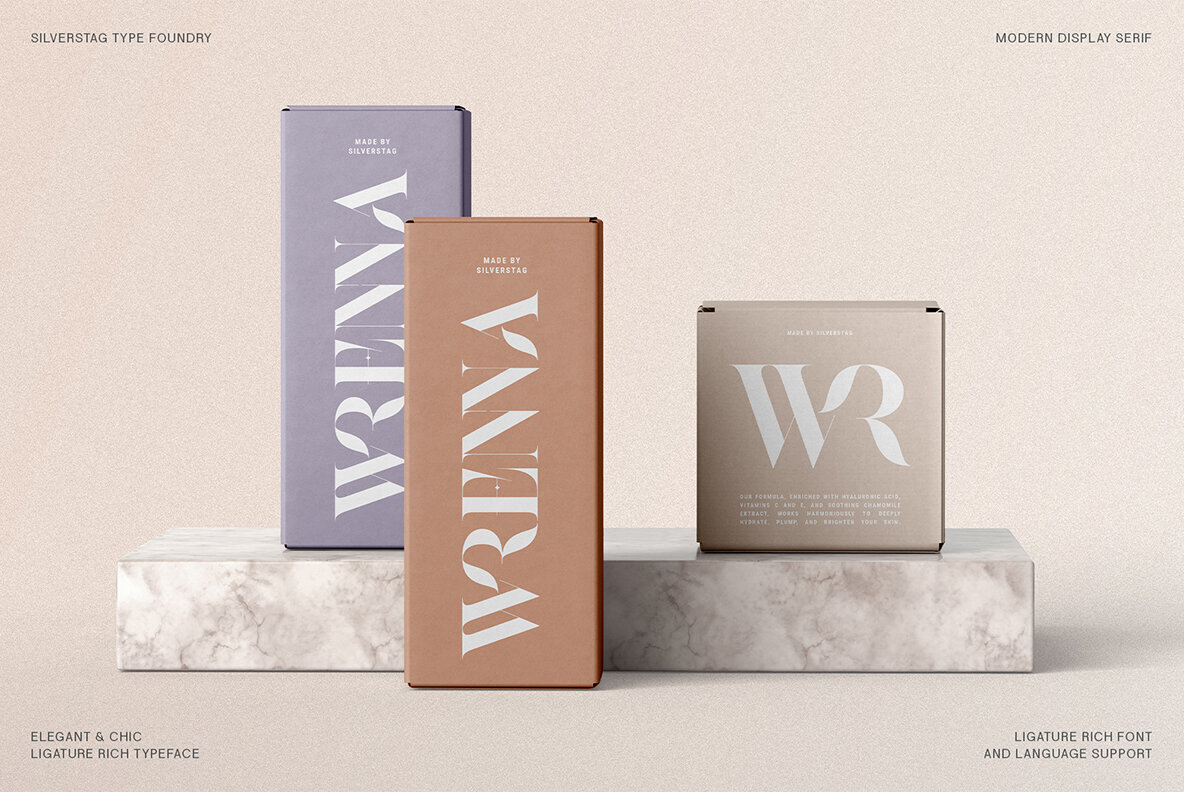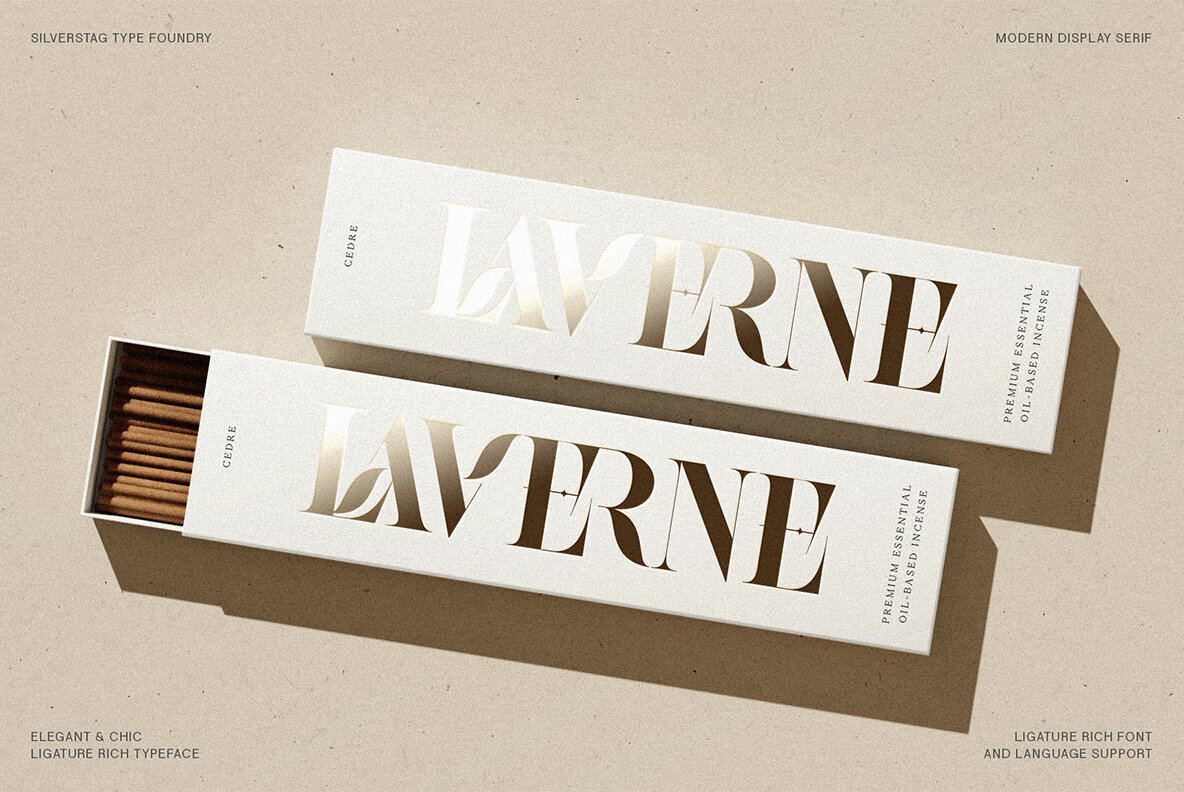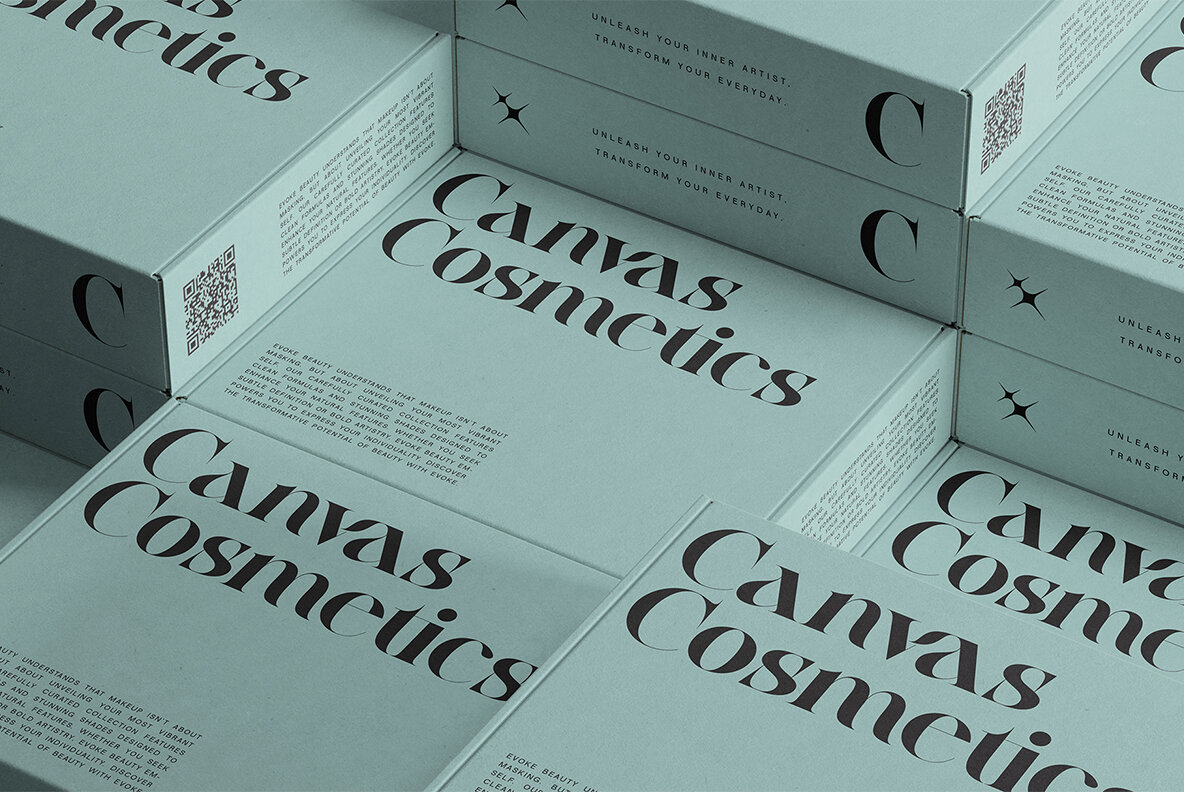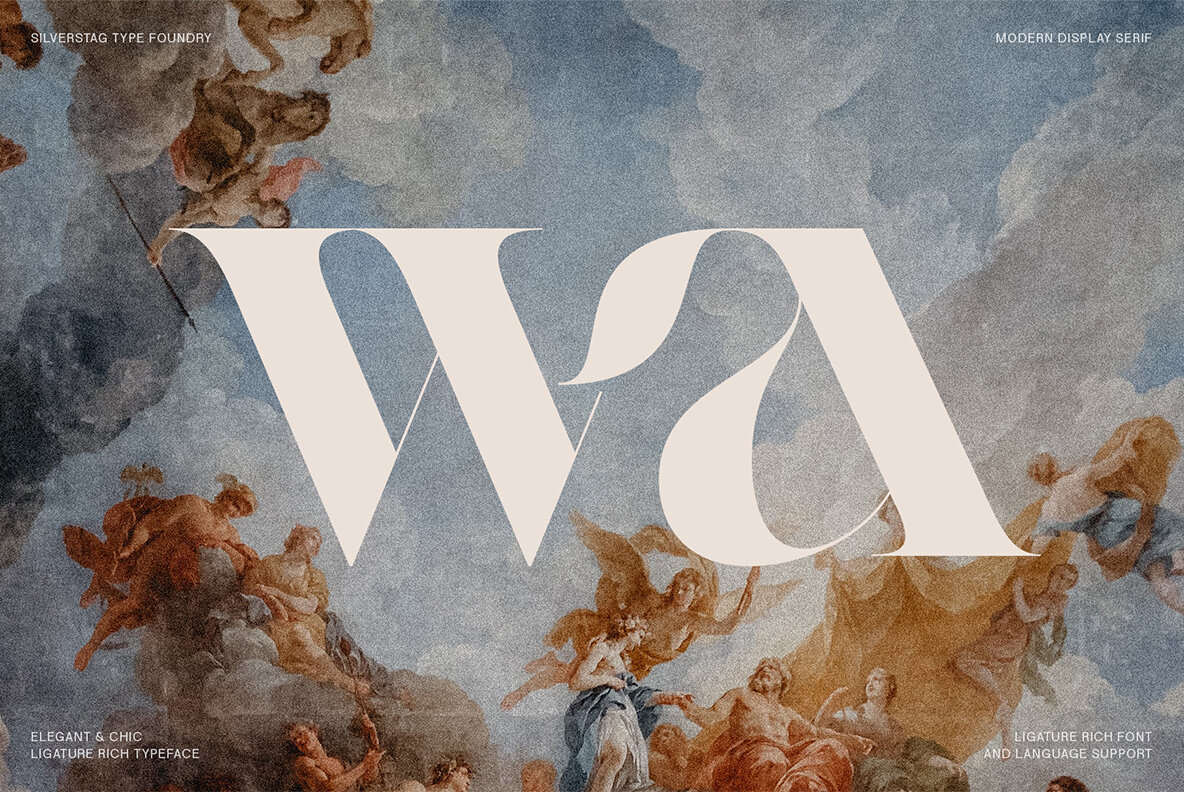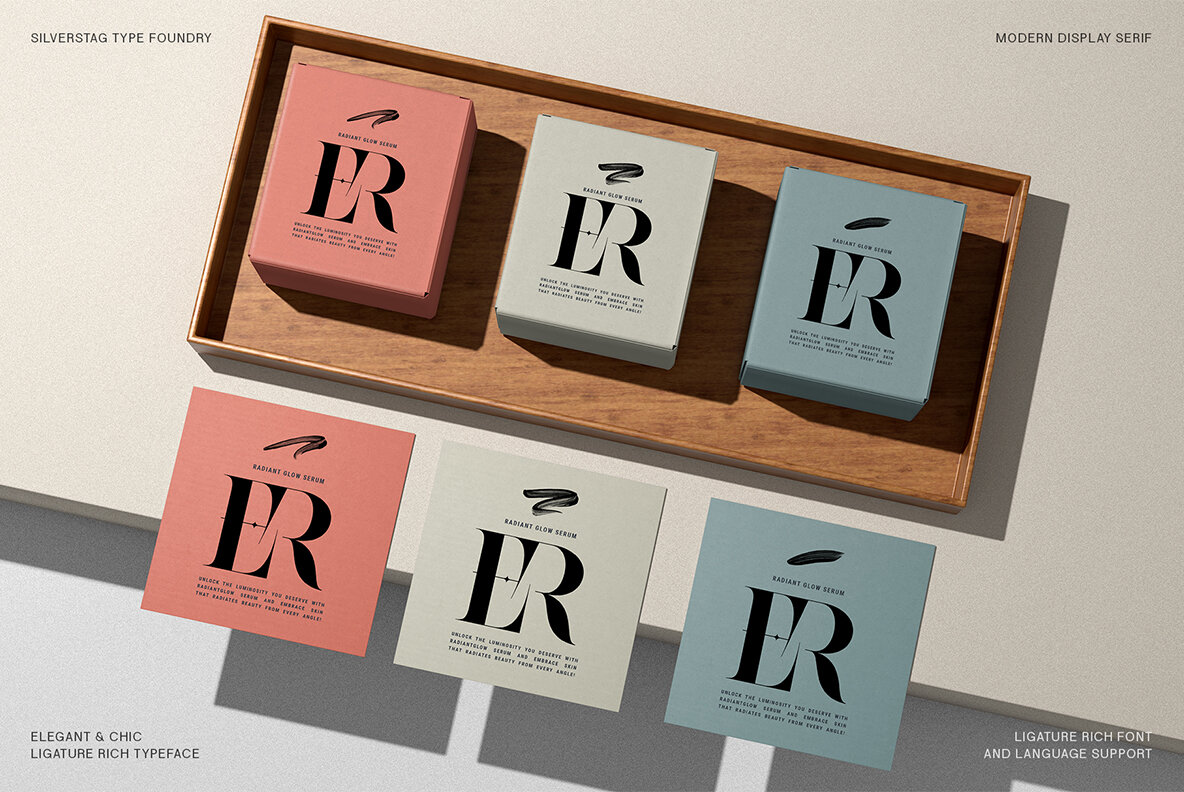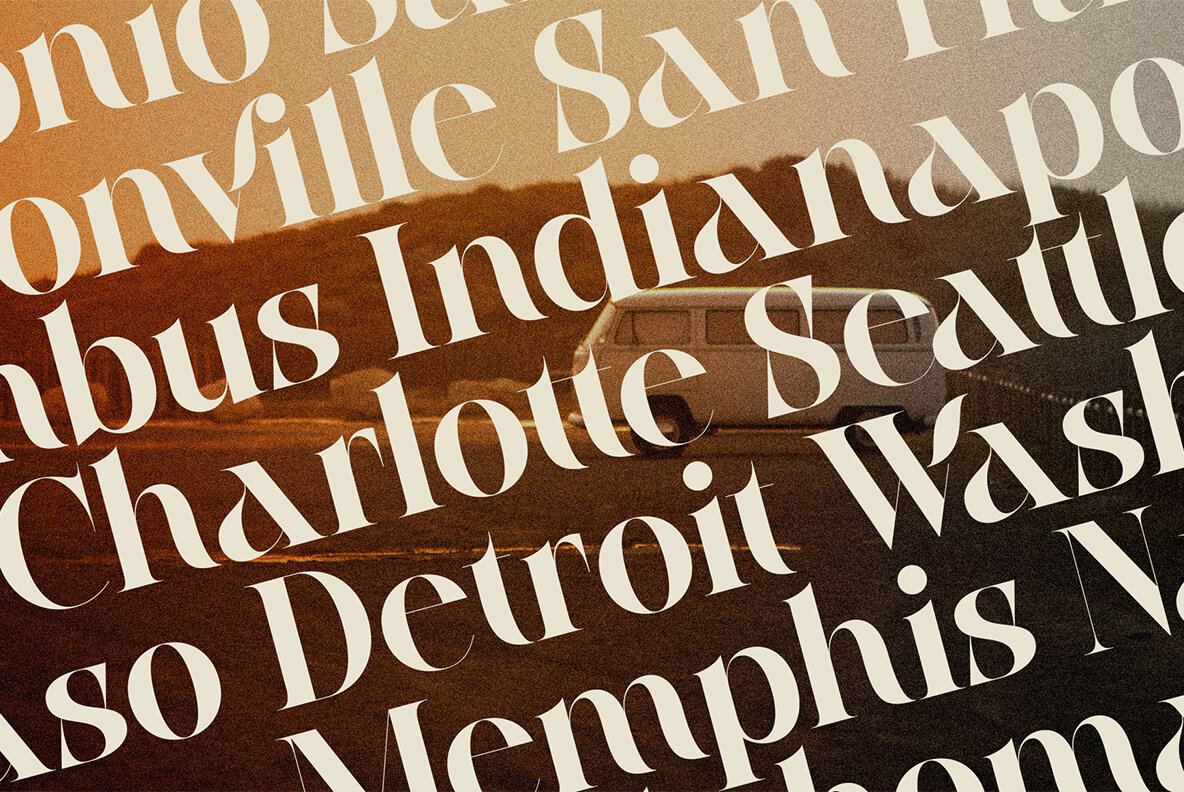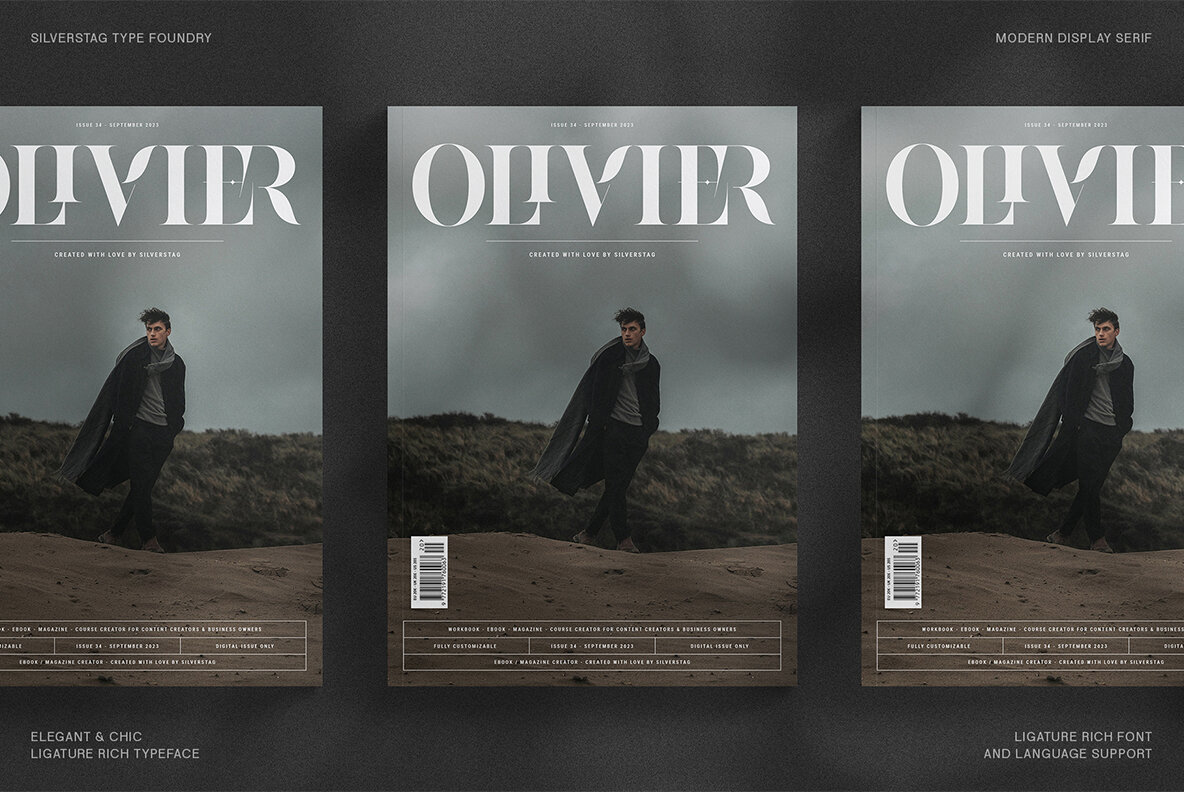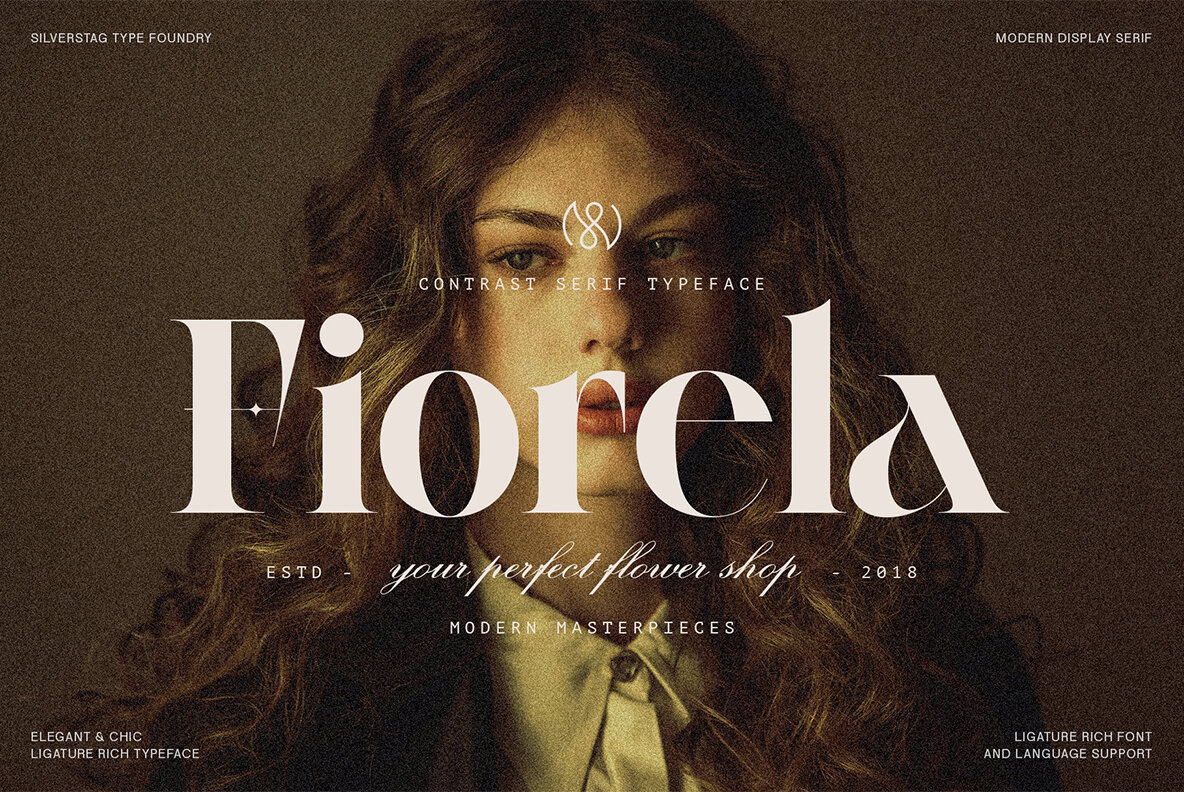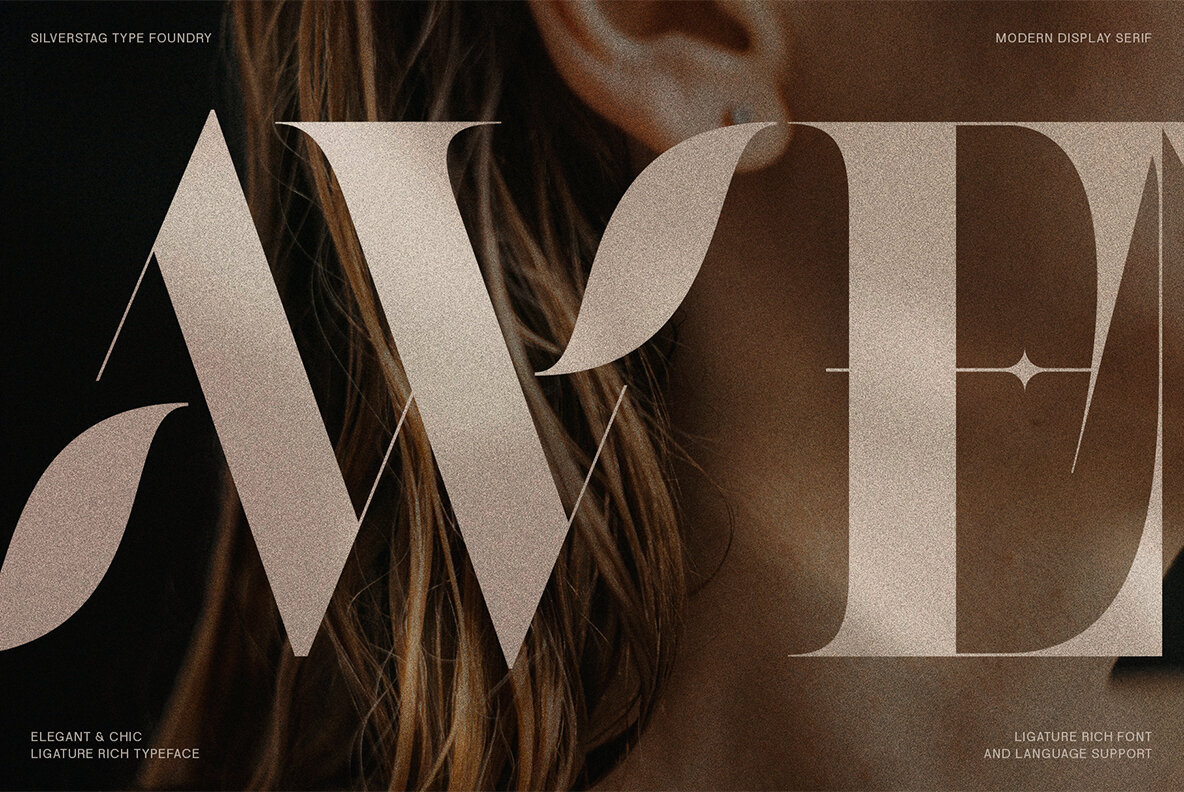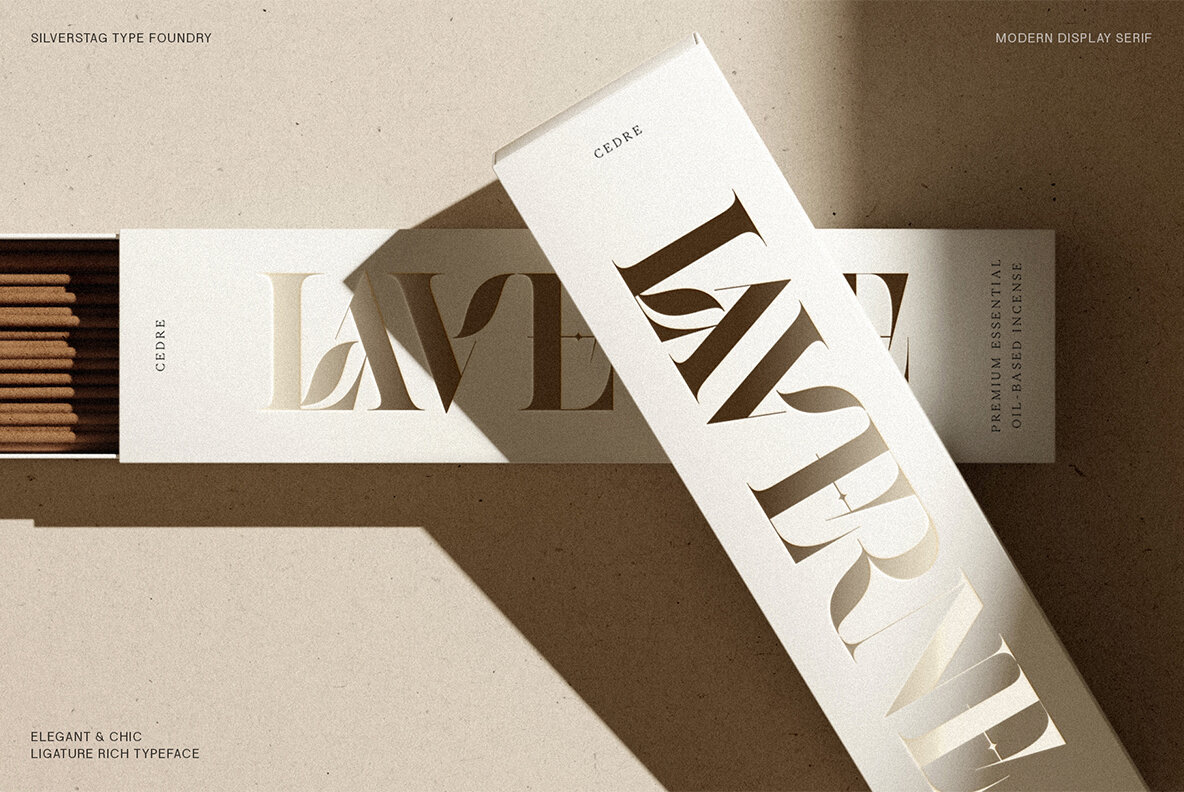
Raving Display Font
Introducing Raving Display: The High-Contrast Serif That Will Elevate Your Designs Graphic designers, get ready for a font that breaks all the rules! Raving Display is a stunning display serif where elegance meets high-voltage drama. Its breathtaking contrast between razor-thin hairlines and powerfully bold strokes will transform your headlines, logos, and branding into unforgettable works of art. Key Features for Design Dominance: Where Raving Display Shines: Ready to unleash the power of Raving Display? Download today and let your creativity run wild!